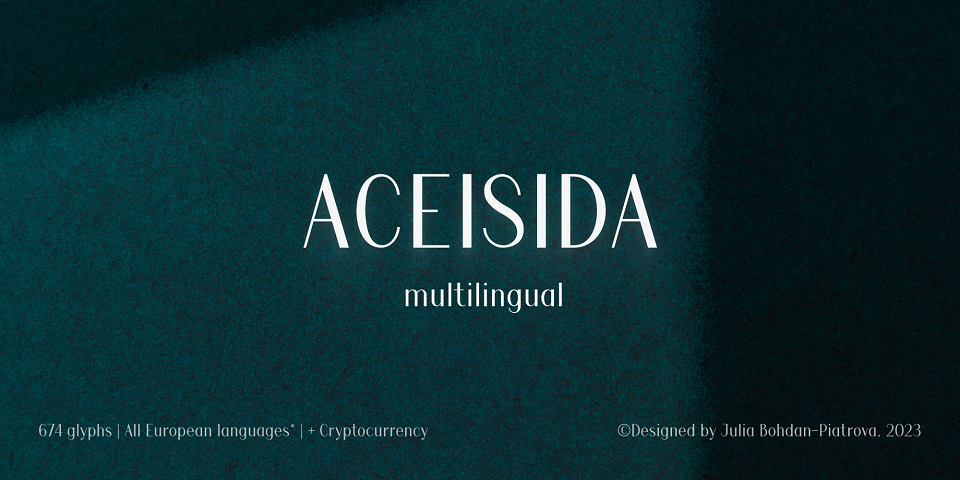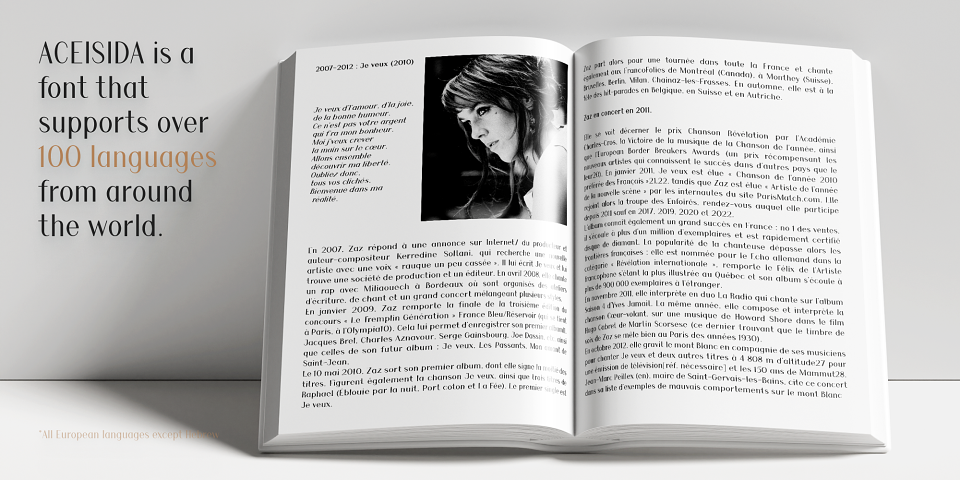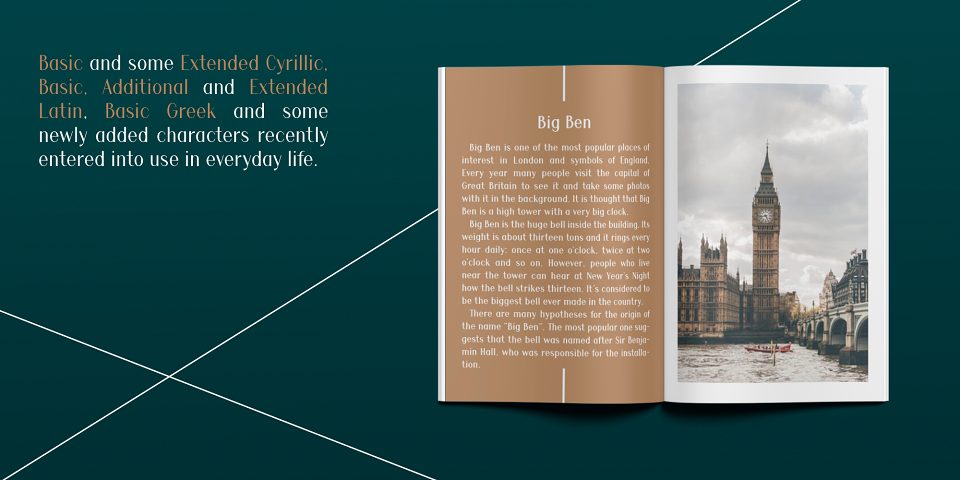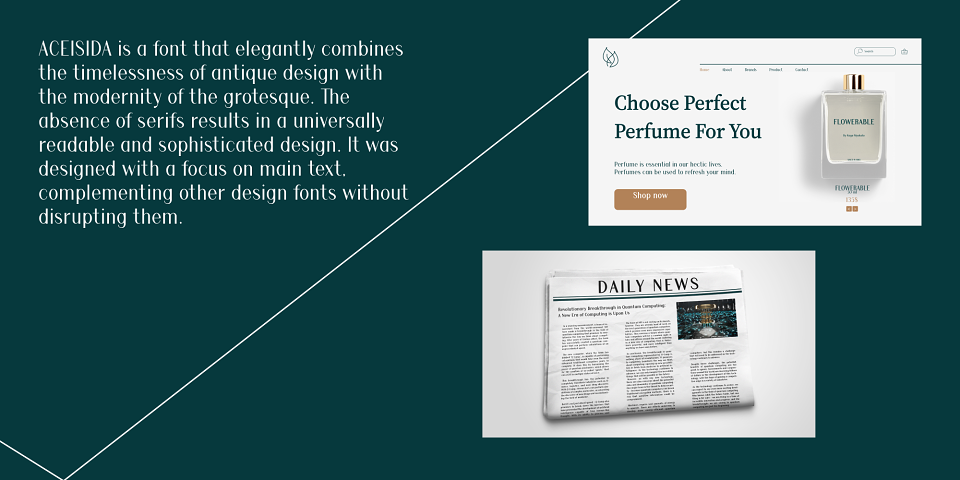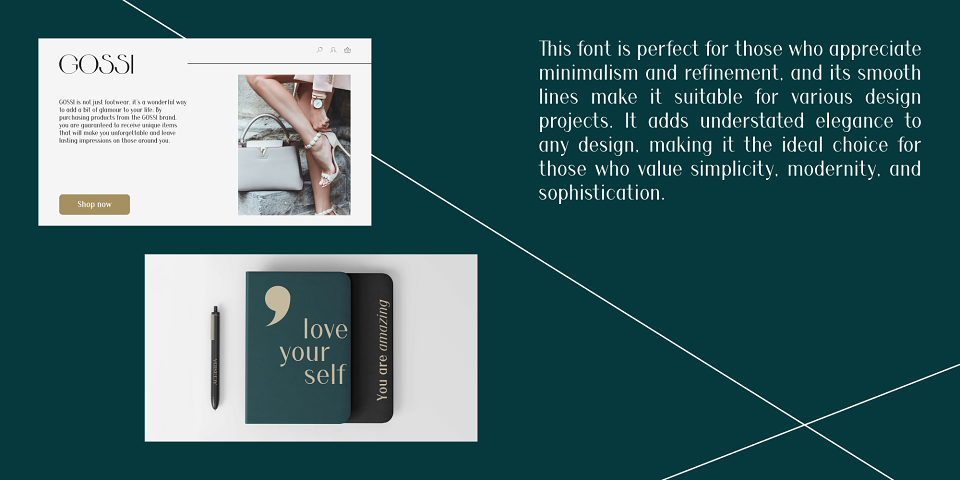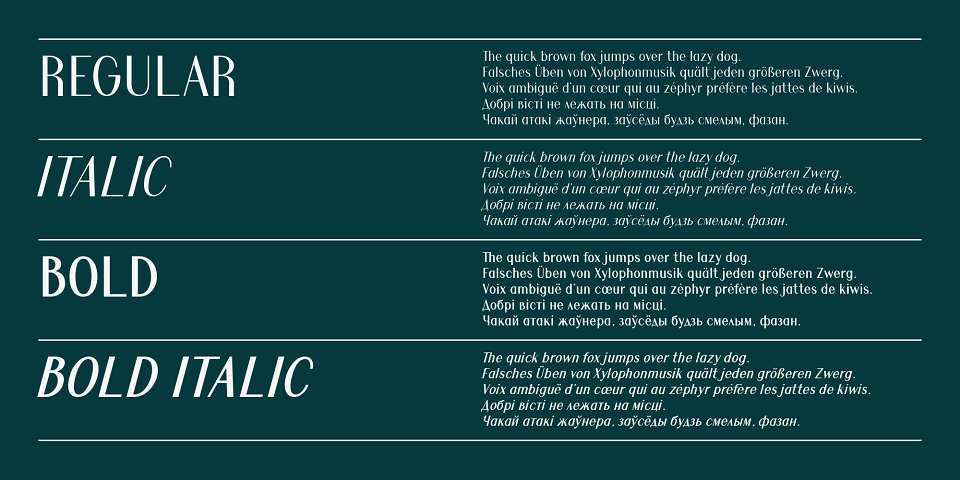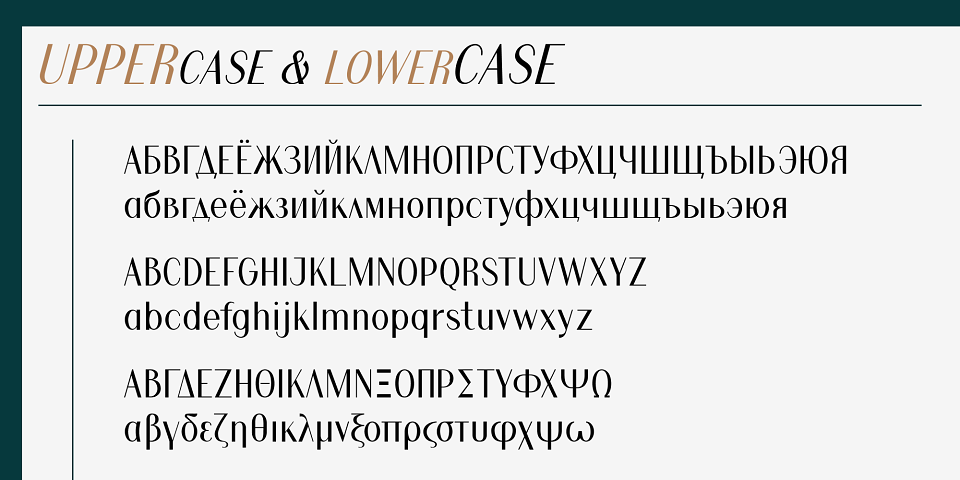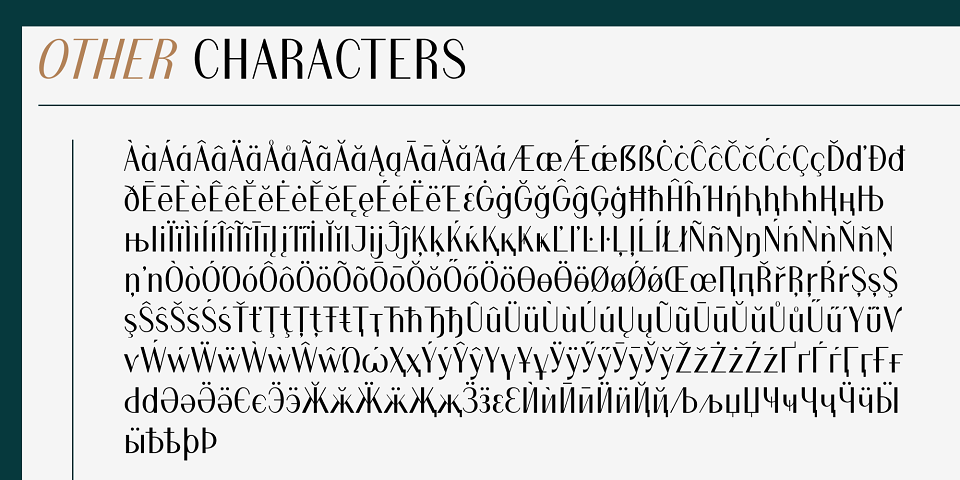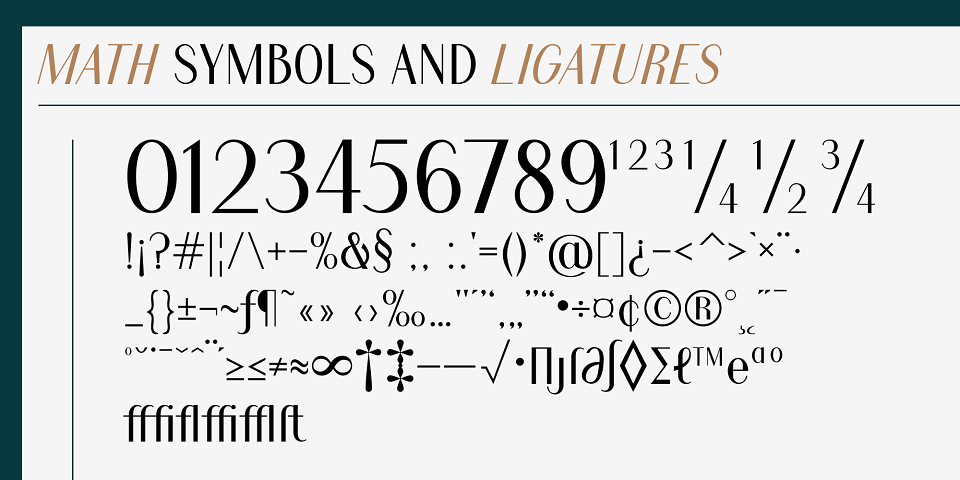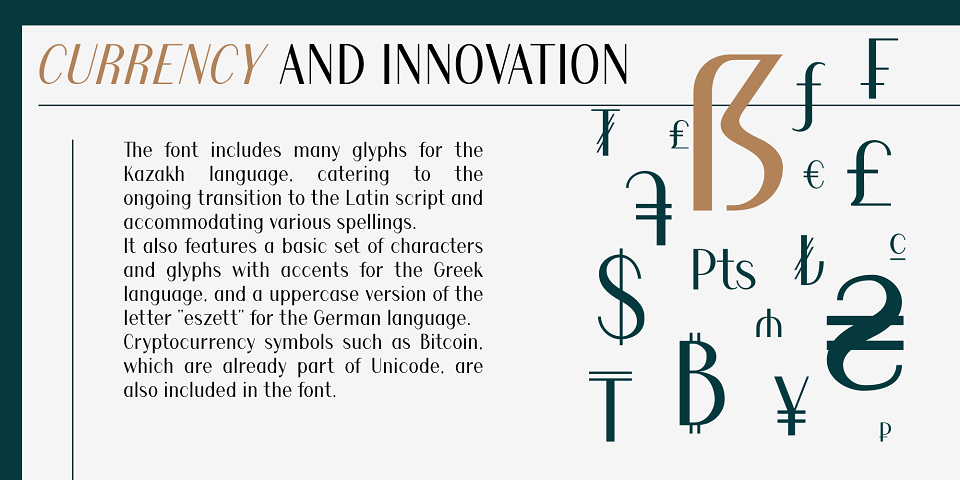
ACEISIDA is a font that supports over 100 languages from around the world. This font elegantly combines the timelessness of antique design with the modernity of the grotesque. The absence of serifs results in a universally readable and sophisticated design. It was designed with a focus on the main text, complementing other design fonts without disrupting them.
ACEISIDA Multilingual Font sans serif